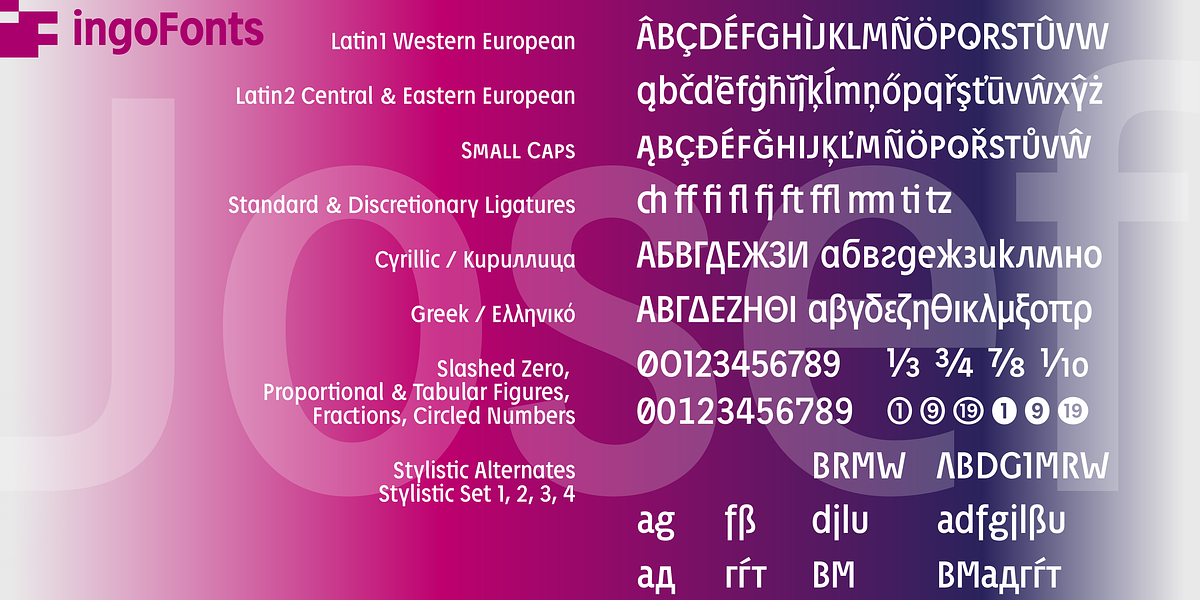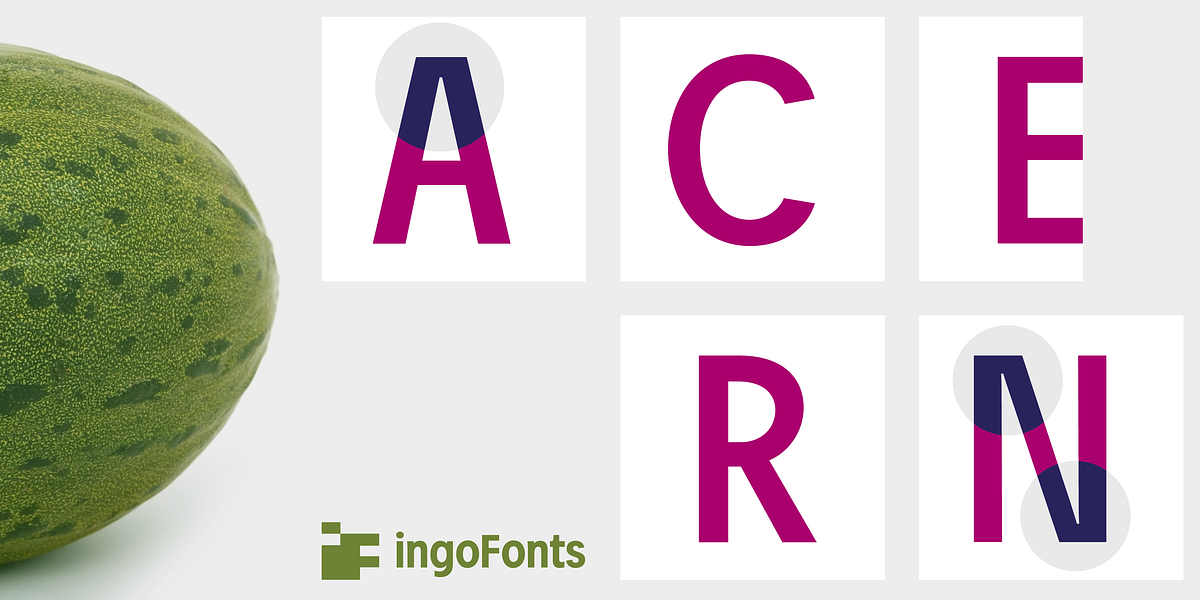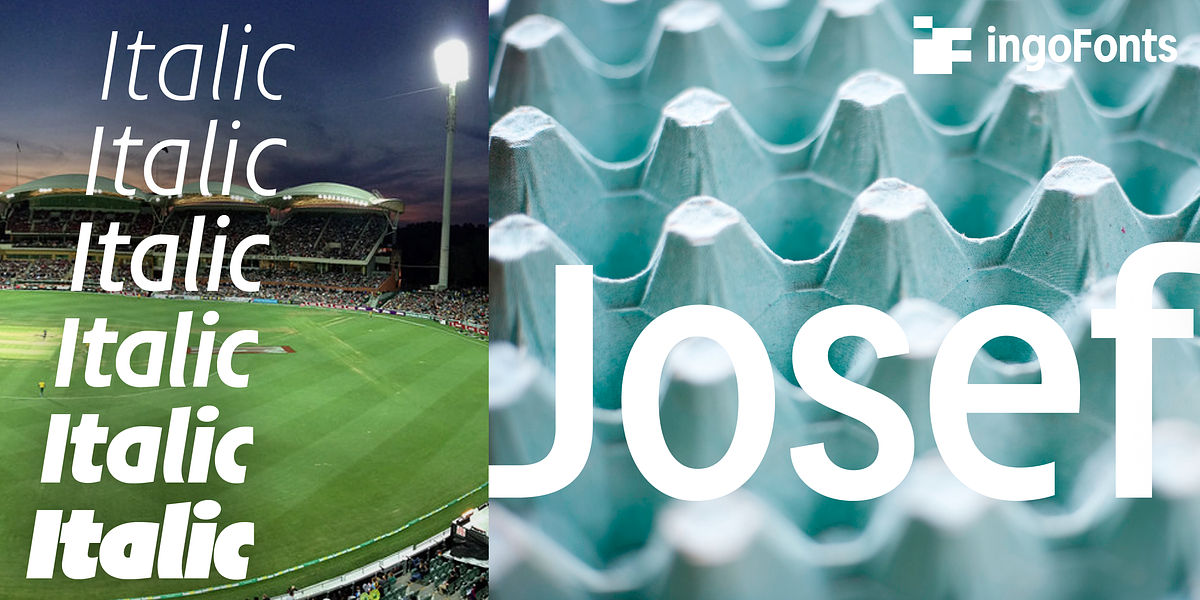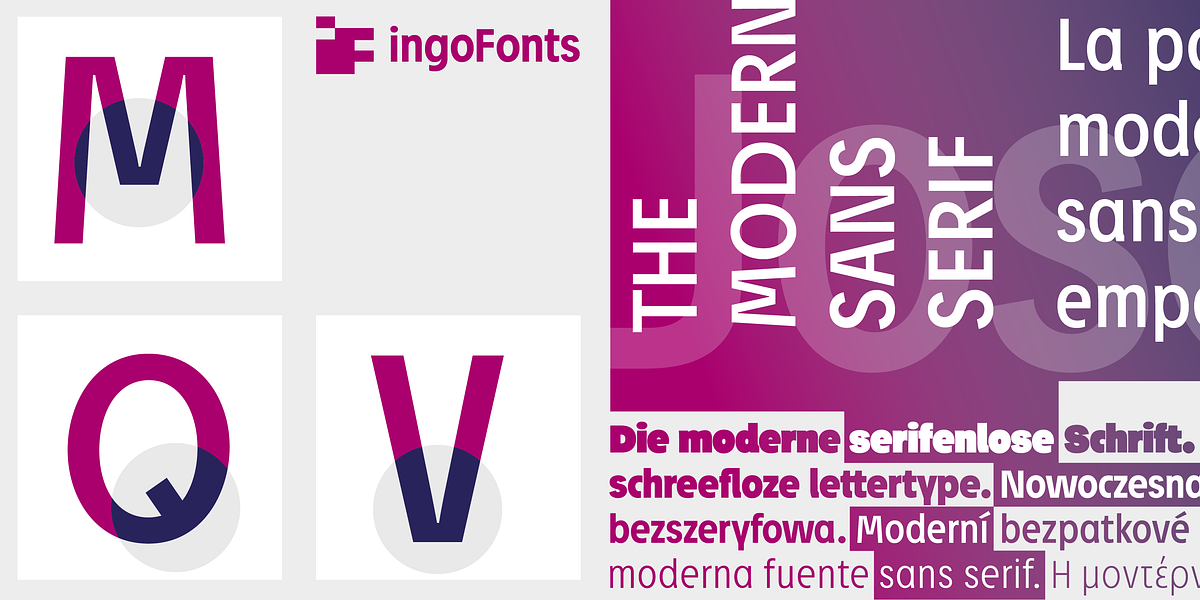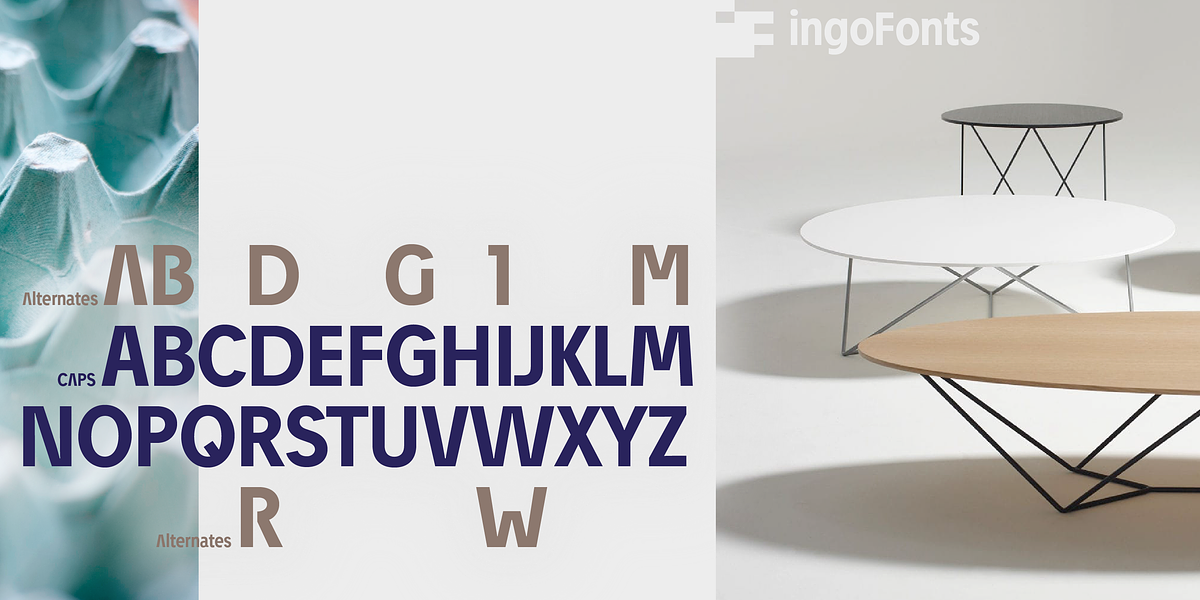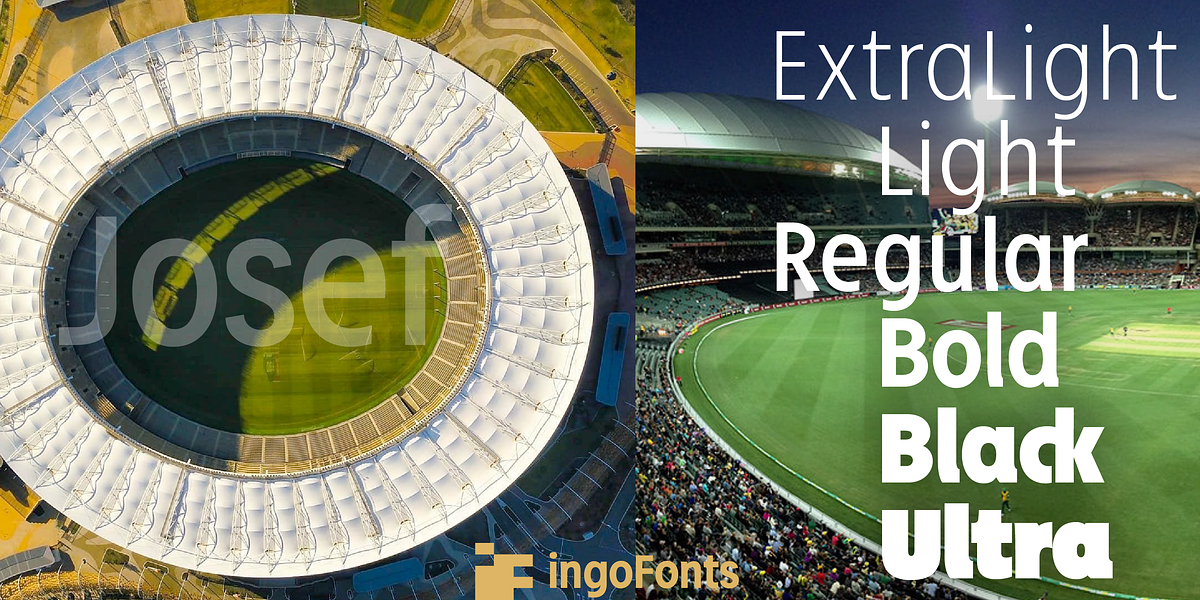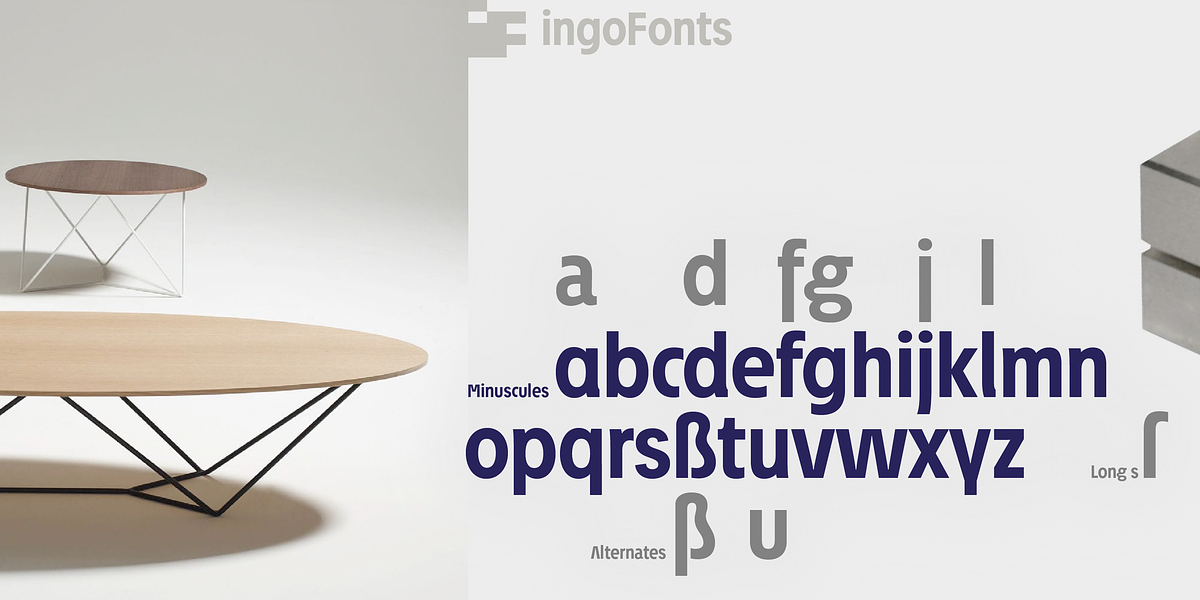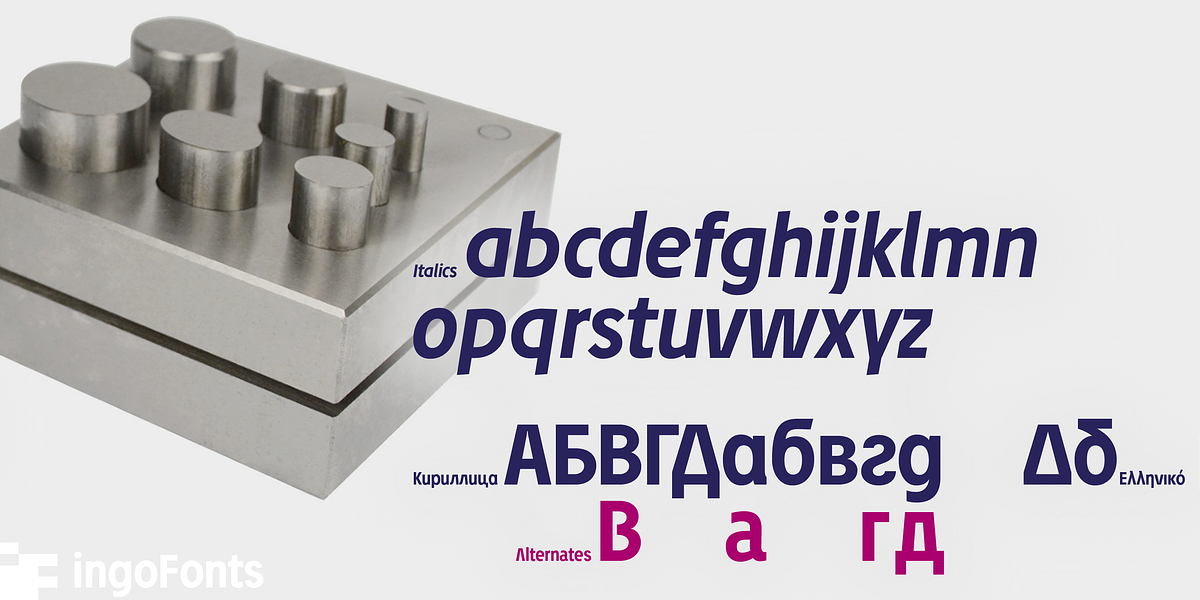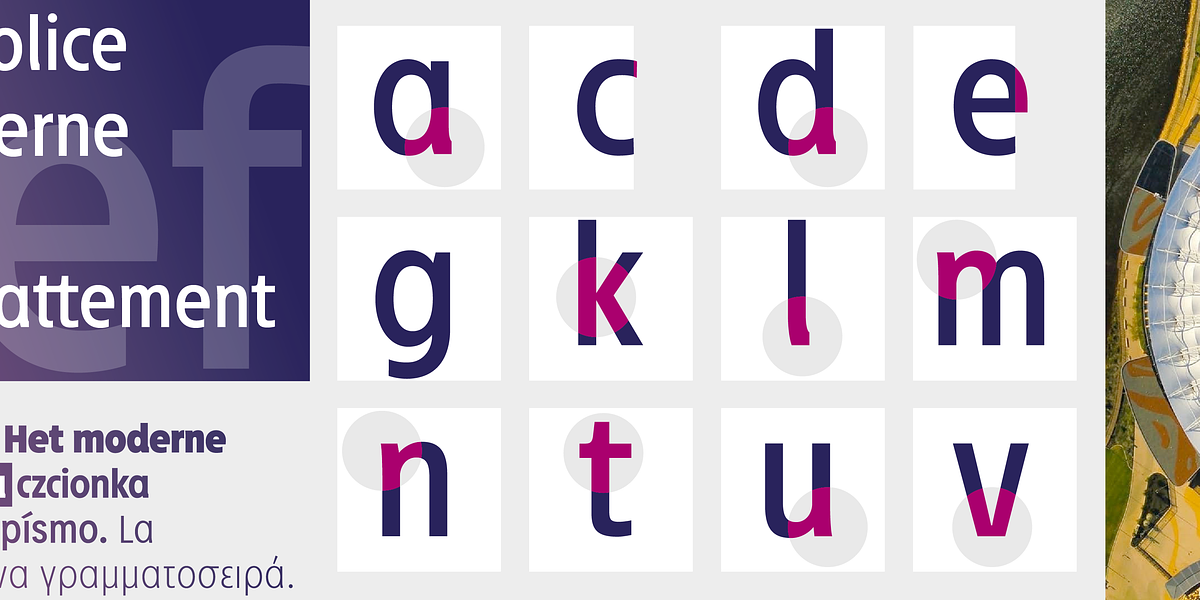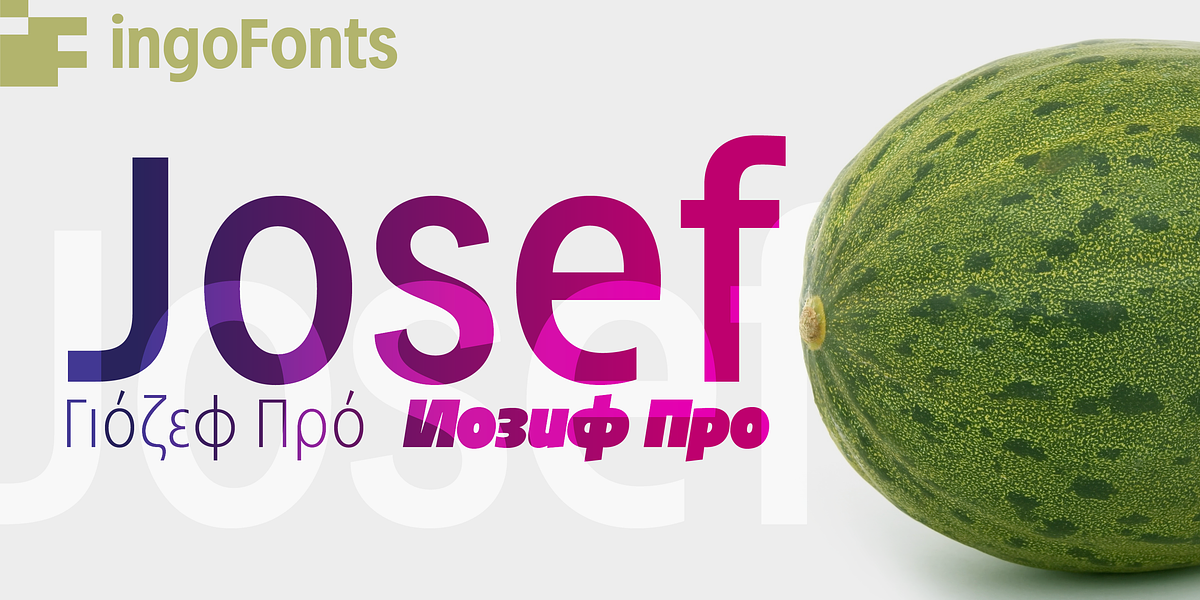
Josef Pro
Josef is a neo-humanist sans serif font characterized by its open round forms and condensed letter spacing. The typeface has a gentle and pleasing appearance due to the light counter forms within the letters. Notably, Josef incorporates elements reminiscent of serifs in certain letters like 'a', 'd', 'l' and 'm'. This blending of sans serif simplicity with subtle serif influences contributes to its unique and functional aesthetic. The font includes alternative letterforms for added versatility and a range of ligatures that enhance readability and visual interest.